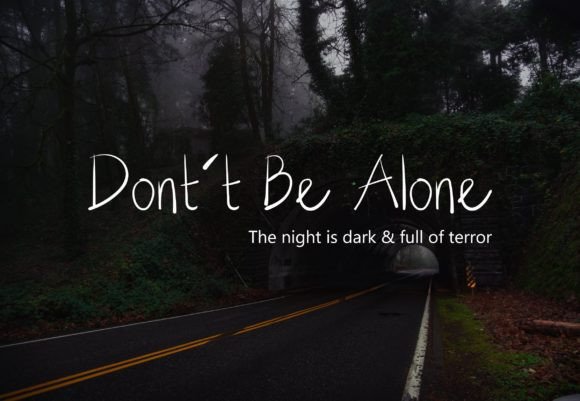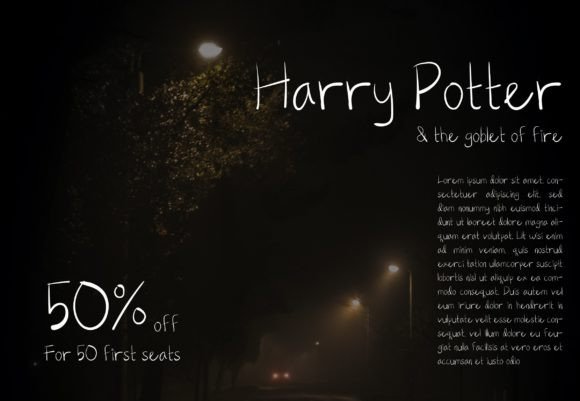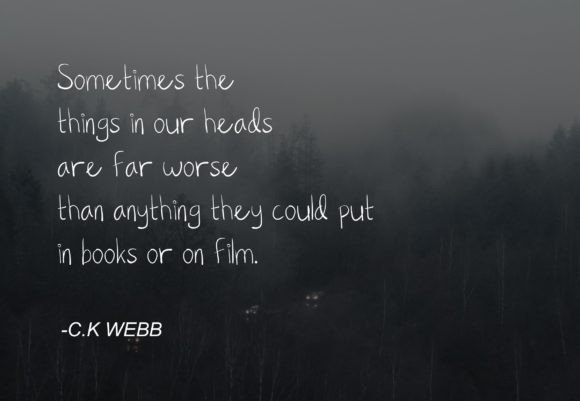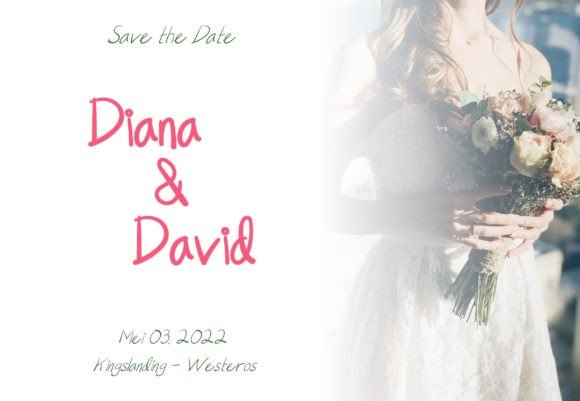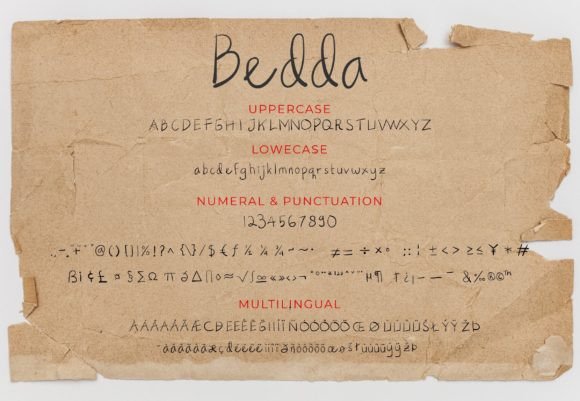
The Sweet Spot: Discovering the Charm of Bedda Font
I’ll never forget the moment I stumbled upon Bedda Font while working on a branding project for a small bakery. I was on a tight deadline, and my usual go-to fonts just weren’t cutting it. The client wanted something warm, inviting, and uniquely handcrafted. As I scrolled through my font library, Bedda caught my eye, and I knew I had found the perfect fit.
What I Love About Bedda Font
• Sweet and Friendly Vibe: Bedda exudes a natural, handcrafted feel that’s perfect for designs that need a personal touch.
• Versatility: This font is incredibly versatile and can be used for a wide range of projects, from photography watermarks to product packaging.
• 🎨 Unique Style: Bedda’s unique style makes it stand out from more traditional fonts, adding a touch of personality to any design.
While Bedda Font is amazing, it’s not perfect. Here are a few things to keep in mind:
• ⚠️ Limited Formality: Bedda’s handwritten nature makes it less suitable for very formal or corporate designs.
• 🤔 Glyph Variety: While Bedda has a great selection of glyphs, it may not have every special character you need for a specific project.
The Story Behind Bedda Font
Bedda Font was created with the intention of bringing a touch of warmth and personality to designs. Its creator aimed to craft a font that felt both natural and unique, perfect for a wide range of creative projects.
Q: What makes Bedda Font unique?
A: Bedda Font’s unique, handwritten style and natural feel make it stand out from more traditional fonts.
Q: Is Bedda Font suitable for digital and print designs?
A: Absolutely! Bedda Font works well in both digital and print designs, from social media posts to product packaging.
Q: Can I use Bedda Font in languages other than English?
A: Bedda Font supports multiple languages, but it’s best to check the font’s character set to ensure it covers your specific language needs.